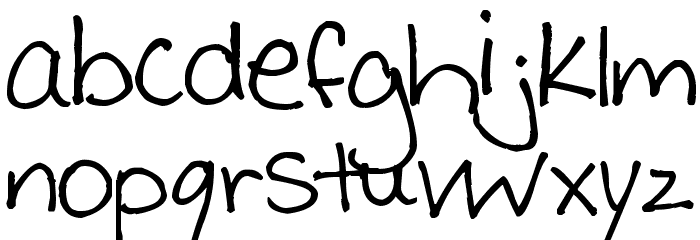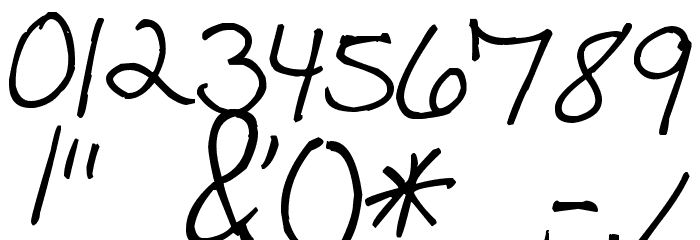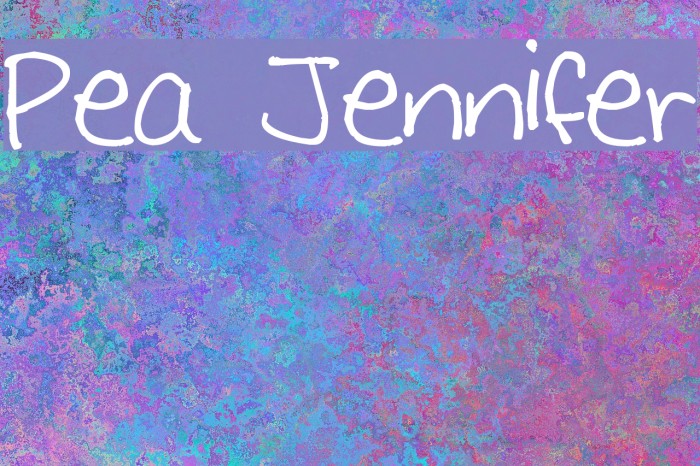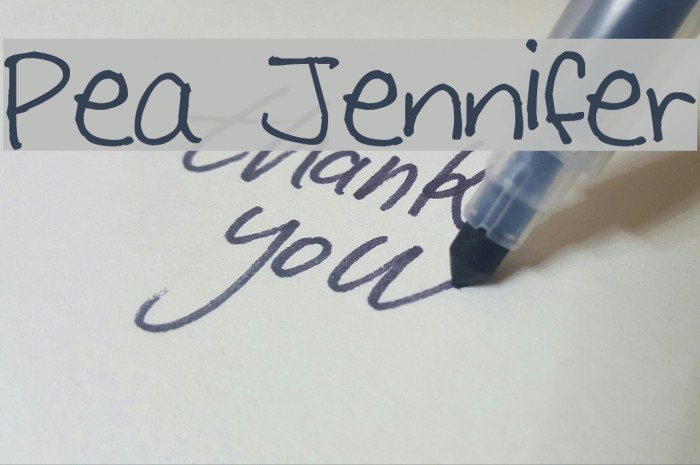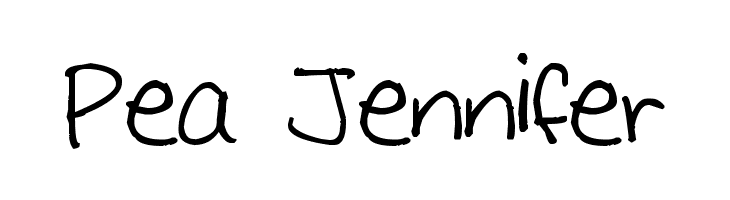
Pea Jennifer Font
This font exudes a playful and casual handwritten style, characterized by its loose and informal strokes. Each letter is crafted with a sense of spontaneity, giving it a personal and approachable feel. The uppercase letters maintain a consistent height, while the lowercase letters exhibit a slight variation in size, adding to the font's charm. The numbers and special characters are equally whimsical, fitting seamlessly with the overall aesthetic. The strokes are moderately thick, providing a balanced weight that ensures readability without sacrificing its handwritten essence.
A playful, casual handwritten font with a personal touch.
- Proposed Projects: Ideal for personal notes, greeting cards, children's books, and informal branding projects.
- Overall Style: Casual
- Use Case: Logos, Headlines, Informal Text